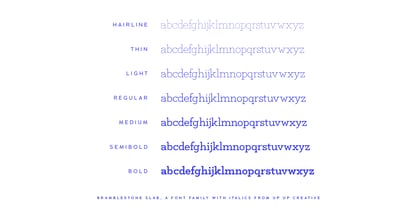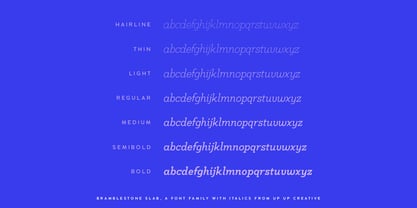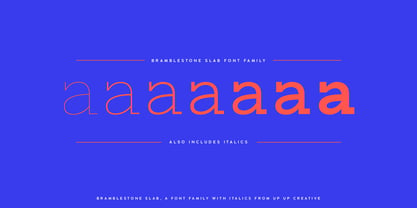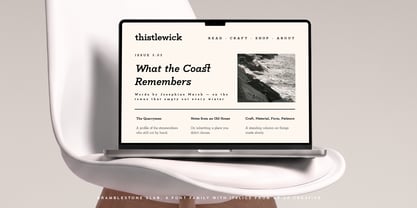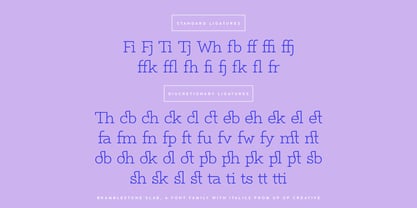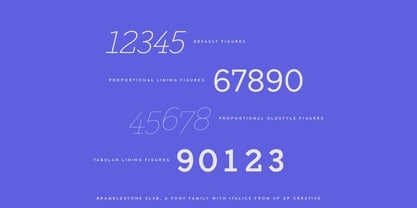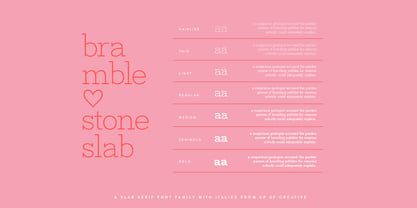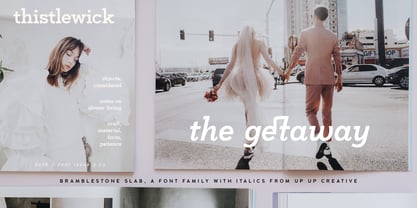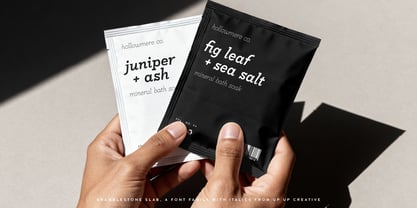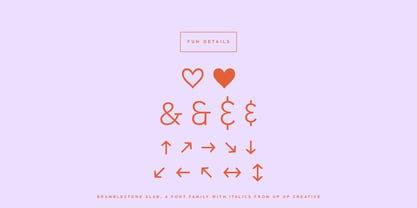
Bramblestone Slab
Bramblestone Slab is a slab serif built for range, moving from a barely-there hairline to a heavy bold across seven weights, each with a true italic redrawn from the ground up rather than merely slanted. It reads as refined at small sizes and holds its own as a headline, equally suited to a magazine masthead, a product label, or a wedding invitation.
With 506 glyphs, the family includes 90 ligatures across standard and discretionary sets, proportional and tabular figures alongside oldstyle numerals, and support for 209 languages. A set of dingbats -- hearts, ampersands, directional arrows -- rounds out the details for anyone building a full brand system rather than a single headline.
Whether the project calls for something delicate and editorial or bold enough to anchor packaging, Bramblestone Slab adjusts without losing its character.